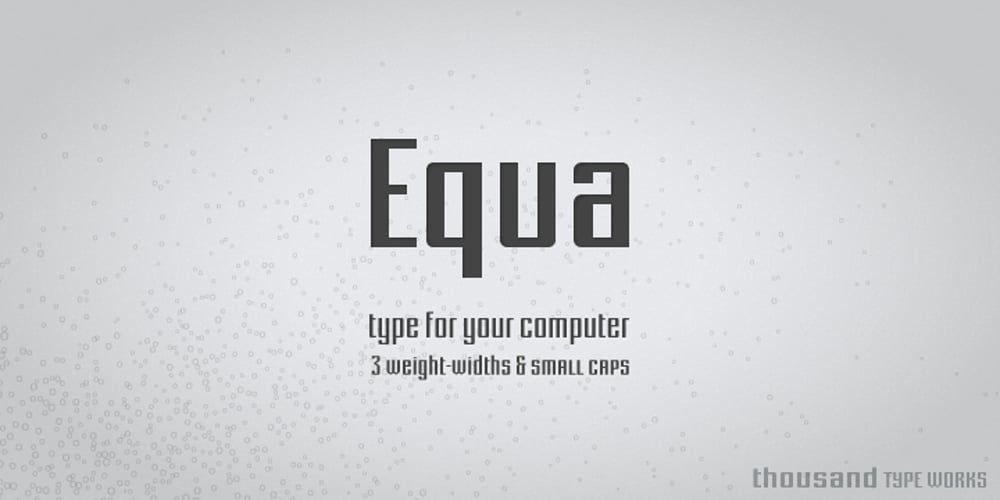
Equa
Equa font
Equa Font Family was designed by Bryan Levay and published by Thousand Type Works. Equa contains 6 styles and family package options. Equa is a font based on strict grid rules. The name “Equa” comes from the equal widths of the vertical strokes, inner spaces and counters and spaces between glyphs. Its geometric construction gives it a technical look with an art deco sensibility. A system of three “weight-widths” based various sized grids gives flexibility in uses, from large condensed headlines to small blocks of text.